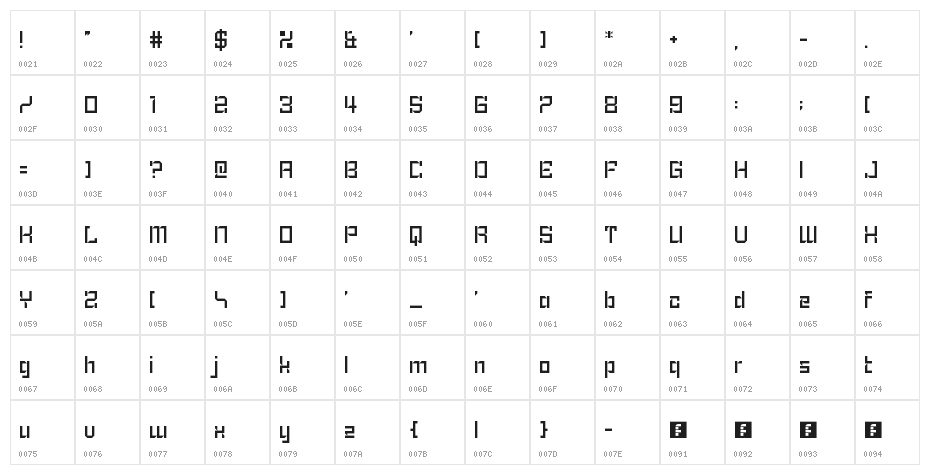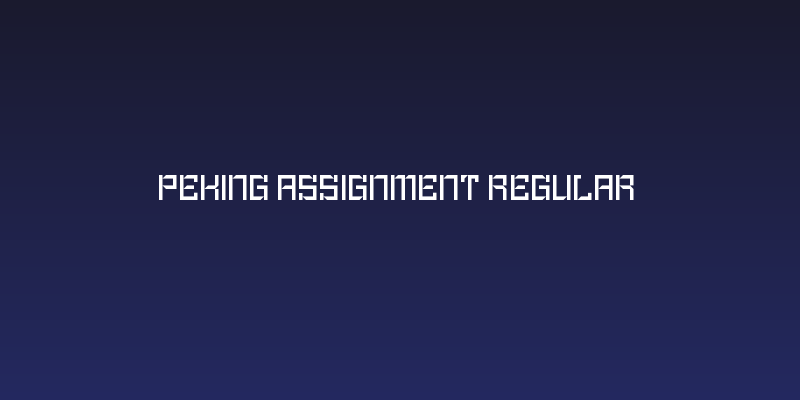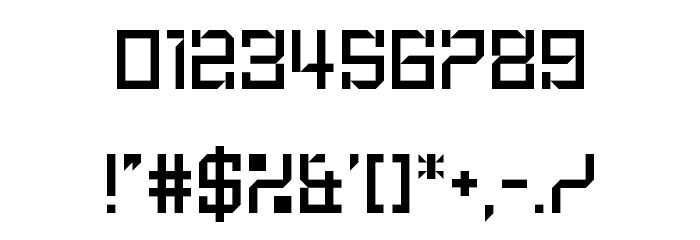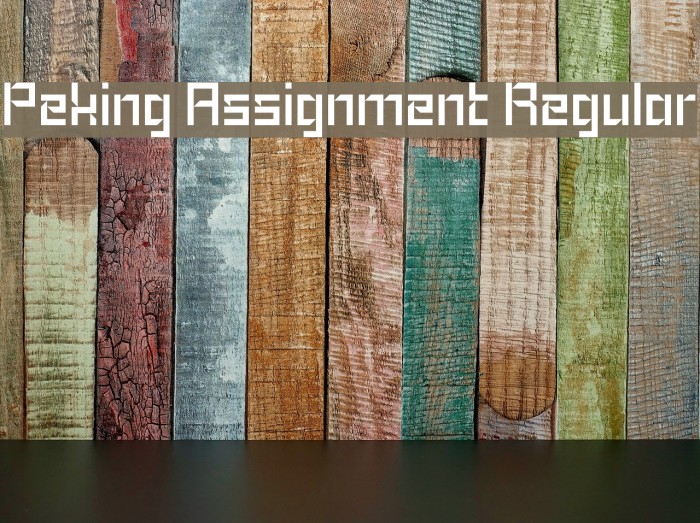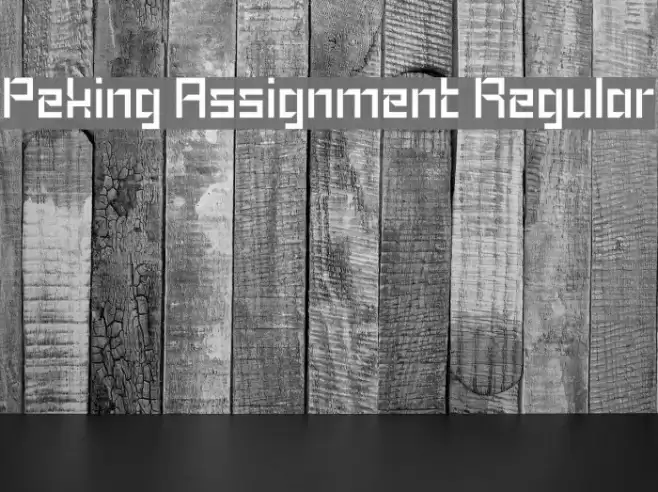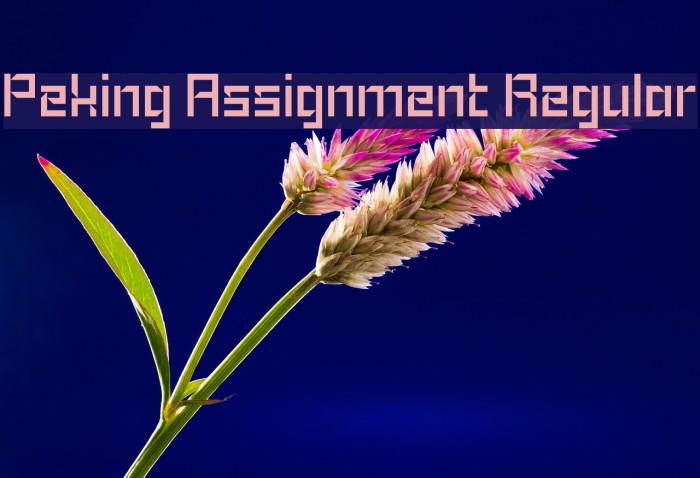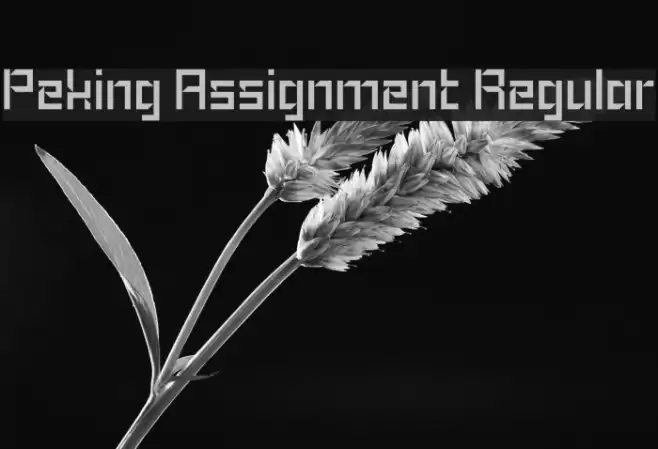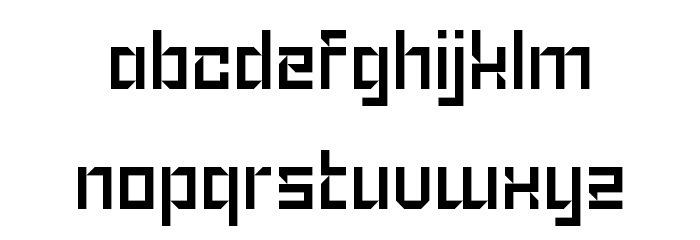
Peking Assignment Regular Font
Peking Assignment Regular Description
This font features a geometric and structured design, characterized by its angular and block-like appearance. The uppercase letters are bold and commanding, with a uniform height and width that creates a cohesive look. The lowercase letters maintain the same geometric style, offering a consistent visual flow. Numbers and special characters are designed with the same angular precision, ensuring readability and a modern aesthetic. The overall style is reminiscent of digital or futuristic themes, making it suitable for projects that require a contemporary and edgy feel.
| Proposed Projects | Ideal for technology branding, digital media, video game interfaces, and futuristic posters. |